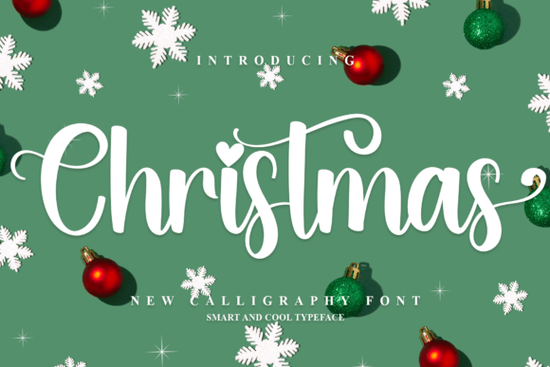
When you're designing for the holiday season, the right typeface can make all the difference between something that feels generic and something that truly captures the spirit of Christmas. Christmas Font is a festive script typeface that brings warmth and personality to any project. With its decorative swirls and playful letterforms, it adds an enchanting touch to everything from greeting cards to gift tags. Whether you're a print-on-demand seller looking to create seasonal products or a hobbyist crafting homemade gifts, this font gives your words a cheerful, nostalgic feel. It's also PUA encoded, which means you can easily access all the extra glyphs and ligatures without any hassle.
I work with a lot of script fonts for holiday projects, and what sets this one apart is how natural it feels at both large and small sizes. The letters flow together smoothly while still keeping that handcrafted look that people love during the holidays.
What makes Christmas Font different from basic holiday typefaces?
A lot of holiday fonts rely on heavy decorations or novelty shapes that make them hard to read beyond a headline. This one keeps the readability intact while adding just enough whimsy. The decorative elements are built into the letterforms rather than stuck on top, so your text stays clean and legible.
The font sits in the script fonts category, but it's not your standard casual script. It has a refined quality that works well for both elegant and playful designs. The ligatures connect naturally, giving your words that seamless, hand-lettered appearance.
Because it's PUA encoded, you're not stuck with just the basic A-to-Z characters. You get access to alternate glyphs, swashes, and decorative flourishes that let you customize each word. If you've ever used a font and wondered why some characters look different in the preview, PUA encoding is what gives you access to those hidden extras.
What can you actually make with this font?
The practical applications are pretty broad. Here are some projects where this typeface really shines:
- Christmas greeting cards – The decorative elements make each word feel like part of the design rather than just text on a page.
- Gift tags and wrapping paper – At smaller sizes, the font stays readable while adding a handmade touch to presents.
- Print-on-demand products – If you sell on platforms like Redbubble or Etsy, this font works great for mugs, tote bags, and ornaments.
- Social media graphics – Holiday announcements, countdowns, and promotional posts look more inviting with a warm script font.
- Newsletter headers and blog titles – It adds personality to email campaigns during the holiday season.
For print-on-demand sellers especially, having a font that reads well on products while still looking decorative is a practical advantage. You don't want customers squinting at a gift tag trying to figure out what it says.
How do you access the extra glyphs and ligatures?
For script fonts like Montana Font, I usually recommend keeping the glyph panel open while you work so you can swap in decorative alternates as you type. With Christmas Font, the swashes and ligatures are designed to enhance the word without overwhelming it. You can add flourishes to the beginning and end of words or swap in alternate letterforms for a more varied look.
Which other script fonts pair well with this one for varied projects?
If you're building a font library for year-round design work, it helps to have options that cover different moods. While Christmas Font handles the holiday season beautifully, you'll want versatile scripts for other projects too.
Ourstory Font is a duo script that gives you both a handwritten style and a more polished serif, making it useful for weddings, invitations, and personal branding. You can see how it fits alongside other script duo fonts for more pairing ideas. Wedding Day Font offers a romantic, elegant script that works well for formal occasions beyond just weddings it's one of those script fonts for wedding day projects that clients keep coming back to. And for everyday use, Casual Handwriting Font brings a relaxed, approachable feel to social media graphics and product labels. It's a solid option when you need casual handwriting script fonts that don't feel stiff.
Having a mix like this means you're prepared for any client request or seasonal project without scrambling for new fonts at the last minute.
A quick practical tip before you start designing
When you're working with a decorative script font like this one, try typing your text in all lowercase first. Script fonts with decorative elements often look more natural when the letters flow together without uppercase interruptions. Use capitals only at the start of sentences or for proper nouns. This keeps the rhythm of the font intact and lets those ligatures connect the way they were designed to.